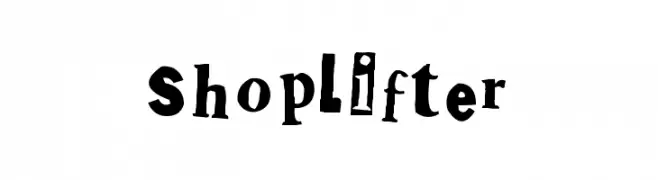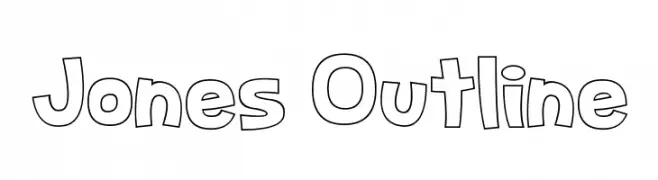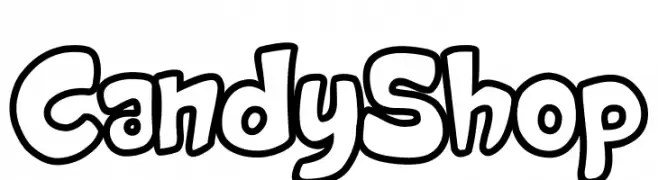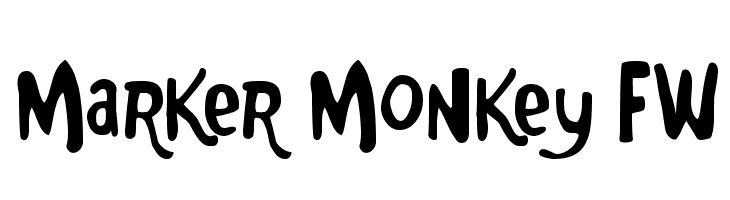
( Fonts by www.vicfieger.com )
A playful, eclectic font with a ransom note style.
( Cooldesignlab - Kurniadi Saputra - creativemarket.com/cooldesignlab?u=cooldesignlab )
A lively and elegant script font with modern, flowing strokes.
( Matthieu Lonton )
A bold, italic font with a modern and dynamic style.
( Fonts by www.braineaters.com )
A playful, hand-drawn font with bold, irregular strokes and a whimsical style.
A playful, bold outline font with rounded, uniform strokes.
( Fonts by imagex )
A playful, bold font with rounded, cartoonish letters and a whimsical style.
A bold, decorative font with intricate detailing and a luxurious feel.